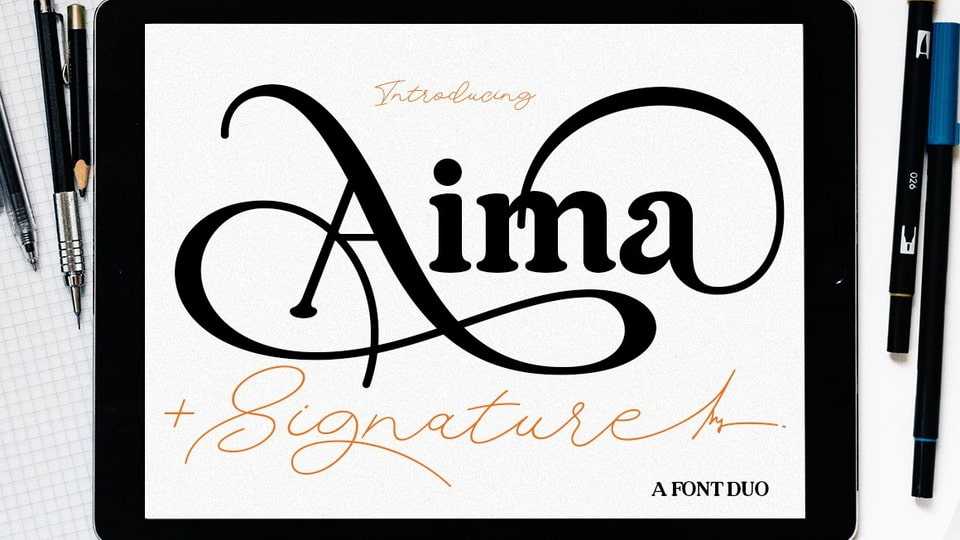
Download Aima font, a delightful typeface that exudes a relaxed and energetic vibe with its playful baseline. These fonts add a genuine touch of authenticity to your designs, making them ideal for branding, logos, greeting cards, wedding stationery, quotes, and much more.